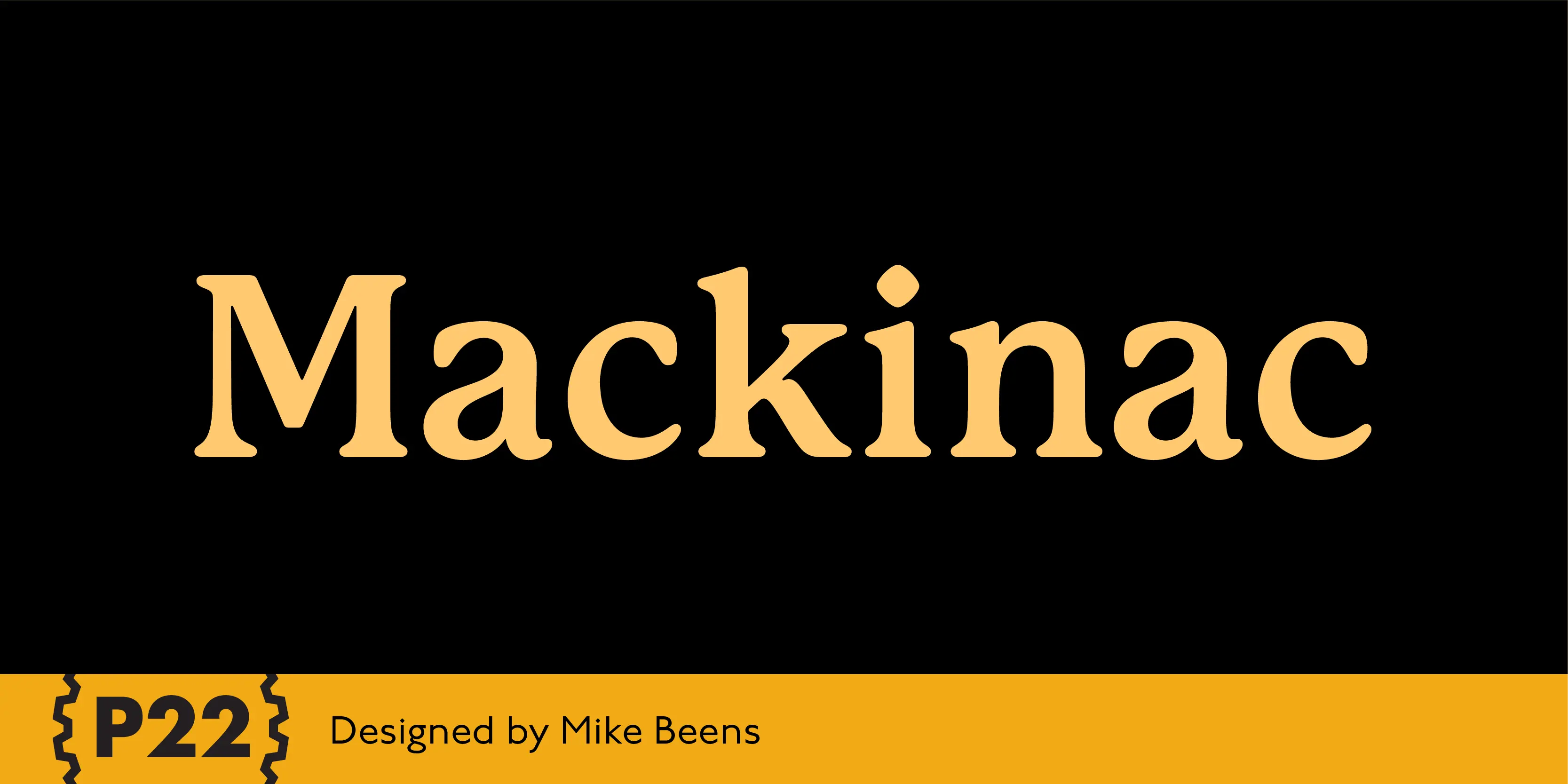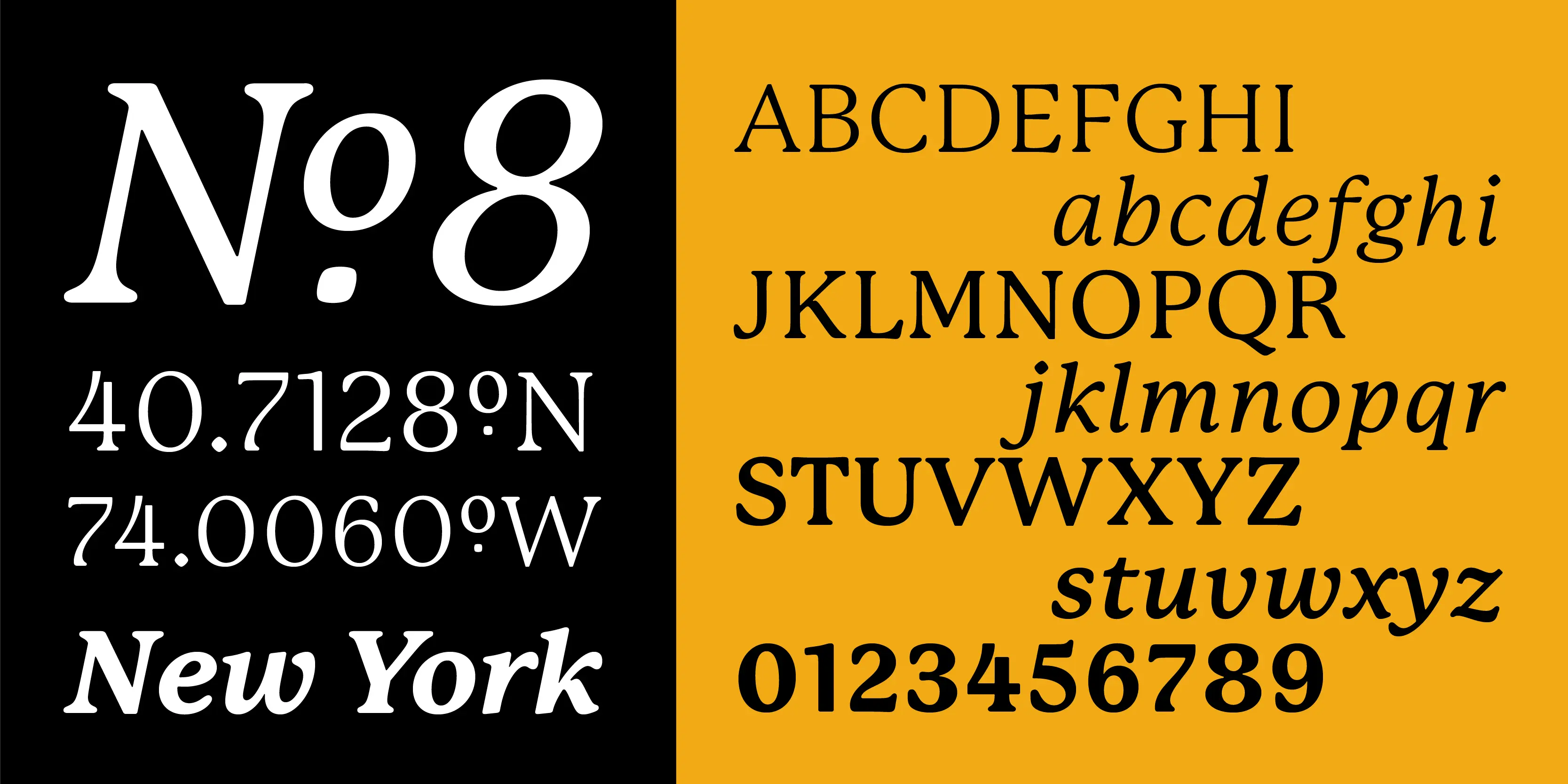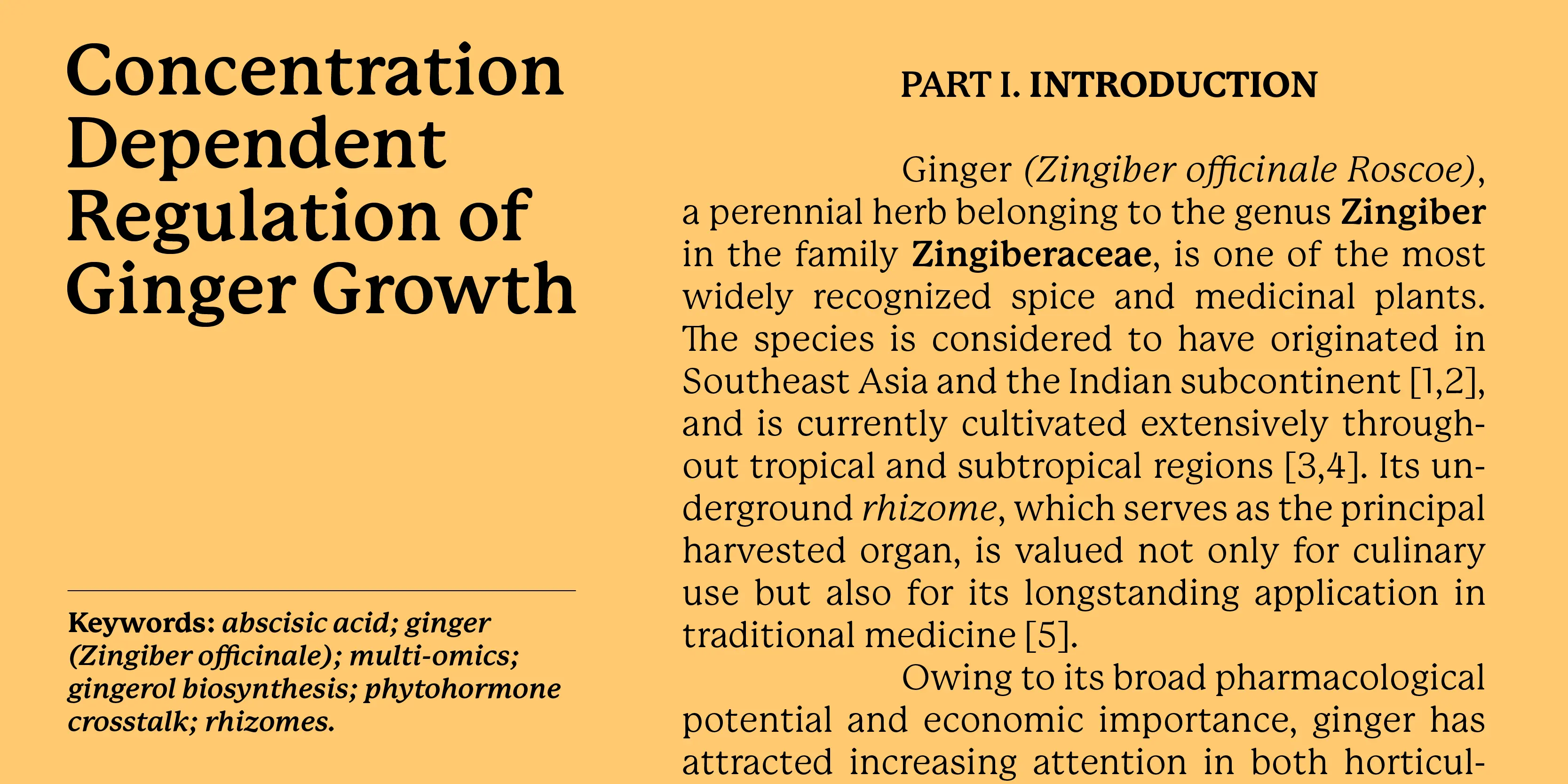
Mackinac Fonts
Mackinac
P22 Mackinac Pro spans four centuries of type design, bridging the Old World with the New. This family of four weights and corresponding italics is of old style construction, with a diagonal weight stress. Contrast between thick & thin is modest and proportioned the same for all fonts. The tall x-height recommends itself to a wide variety of text and display uses; including advertising, publishing, signage, and packaging. P22 Mackinac Pro (pronounced Mackinaw) is a general-purpose, utilitarian design incorporating an abundance of OpenType features: small caps, ligatures, ordinals, numerous figure options plus a few bonus goodies. Mackinac supports 56 languages using extended Latin character sets.
- Common Ligatures
- Fractions
- Old Style Numerals
- Ordinal Numerals
- Slashed Zero
- Small Capitals
- Stylistic Alternates
- Superscript
- Tabular Numerals